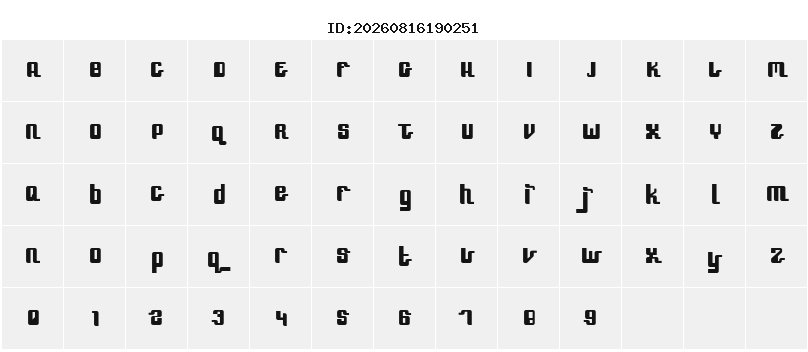
SpeedFreek Preview
• Font Name: SpeedFreek
• Full Font Name: SpeedFreek
• PostScript Name: SpeedFreek
About SpeedFreek.ttf
SpeedFreek.ttf is a modern, elegant sans-serif font designed for ultimate readability and visual harmony. Perfect for branding, headlines, web design, and print materials.